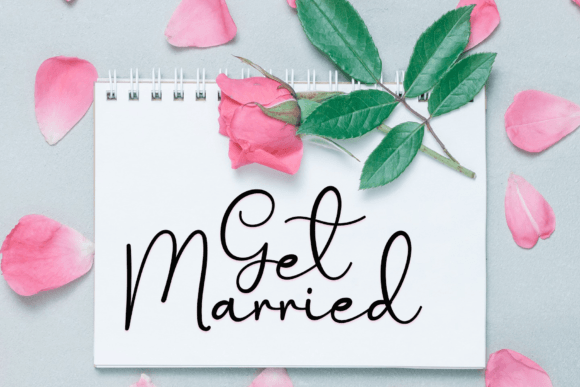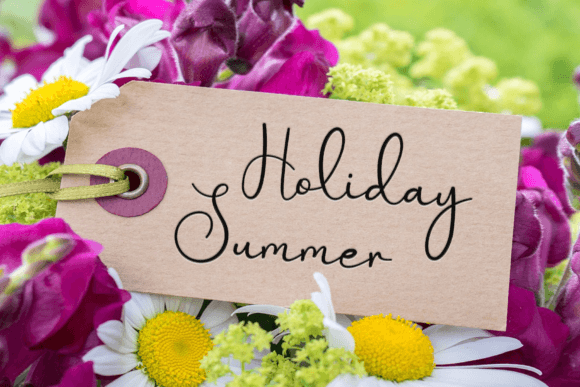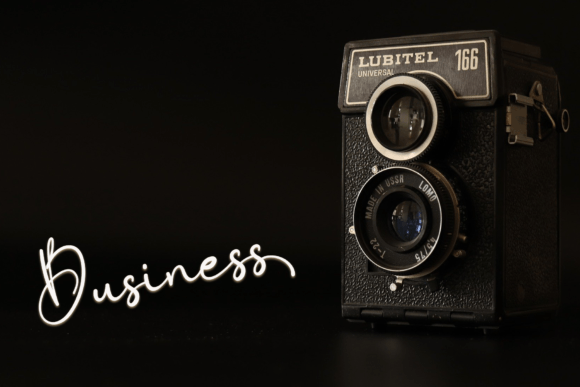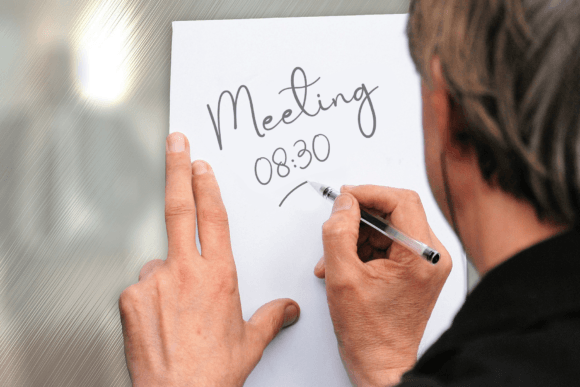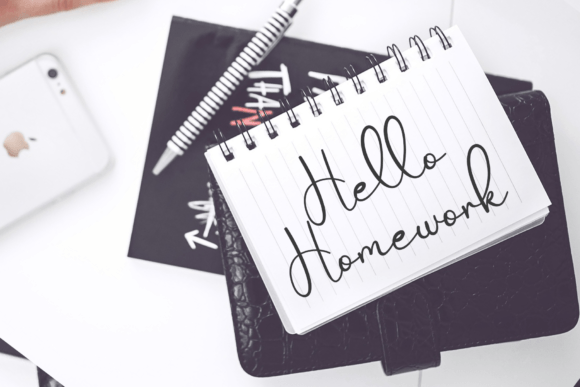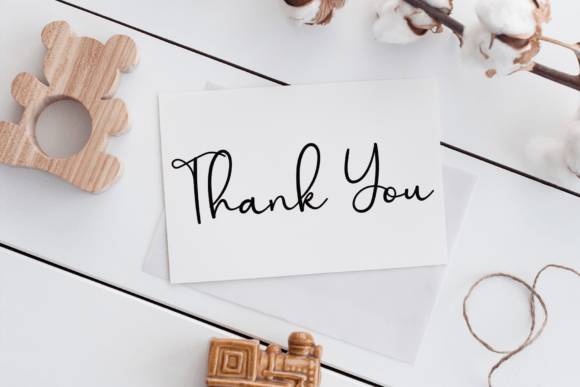
Adding a Personal Touch to Your Designs
Have you ever been scrolling through your social media feed and stumbled upon a beautifully designed invitation that immediately caught your eye? Maybe it was the playful font, the elegant color scheme, or the way the entire design seemed to come together in perfect harmony. Whatever it was, you couldn’t help but feel a sense of inspiration and a desire to recreate that magic in your own work.
As designers, we’re always on the lookout for new and exciting fonts to add a personal touch to our projects. One font that’s sure to bring a smile to your face is the Birthday Font, a sweet and friendly handwritten font that’s perfect for writing wedding invitations, cards, and other designs that need a lovely touch.
The Birthday Font is a valuable addition to any designer’s toolkit, offering a fresh and casual look that’s sure to make your designs stand out. Whether you’re working on a project for a client or just want to create something special for a loved one, this font is sure to bring a little bit of joy and whimsy to your work.
Birthday Font Key Features
- Unique Characteristics: Features a playful, cursive design with swashes and flourishes, perfect for adding a celebratory touch to birthday-related designs.
Birthday Font Review
First off, I want to say that the Birthday Font is a cute and playful addition to any celebration. ✨ The script font is perfect for highlighting birthdays, anniversaries, and other special occasions. It’s fun, whimsical, and sure to bring a smile to anyone’s face. The font is also highly customizable, allowing you to adjust the size, color, and style to fit your design needs.
- The font’s flexibility is a major plus. It can be used for a variety of projects, from social media graphics to party invitations.
- The script style is well-executed, with smooth connections between letters and a consistent flow.
- The font is highly versatile, making it easy to use in different contexts and designs.
However, there are a few limitations to consider. ⚠️ For one, the font may be too playful for more formal designs or projects. It’s best suited for lighthearted and celebratory themes. Additionally, the font may not be as effective in smaller sizes or with limited resolution.
Overall, the Birthday Font is a great addition to any designer’s toolkit. While it may have some limitations, its playful charm and versatility make it a valuable resource for any project that requires a fun and celebratory touch.
Tips for Getting the Most Out of the Birthday Font
Use the Birthday Font to create eye-catching invitations, party decorations, and social media posts.
Experiment with different font sizes, colors, and styles to create a unique look.
Combine the Birthday Font with other design elements, such as graphics and images, to create a visually appealing design.
Birthday Font is commonly used for:
Birthday invitations and party decorations
Personalized birthday cards and gifts
Social media posts and online birthday greetings